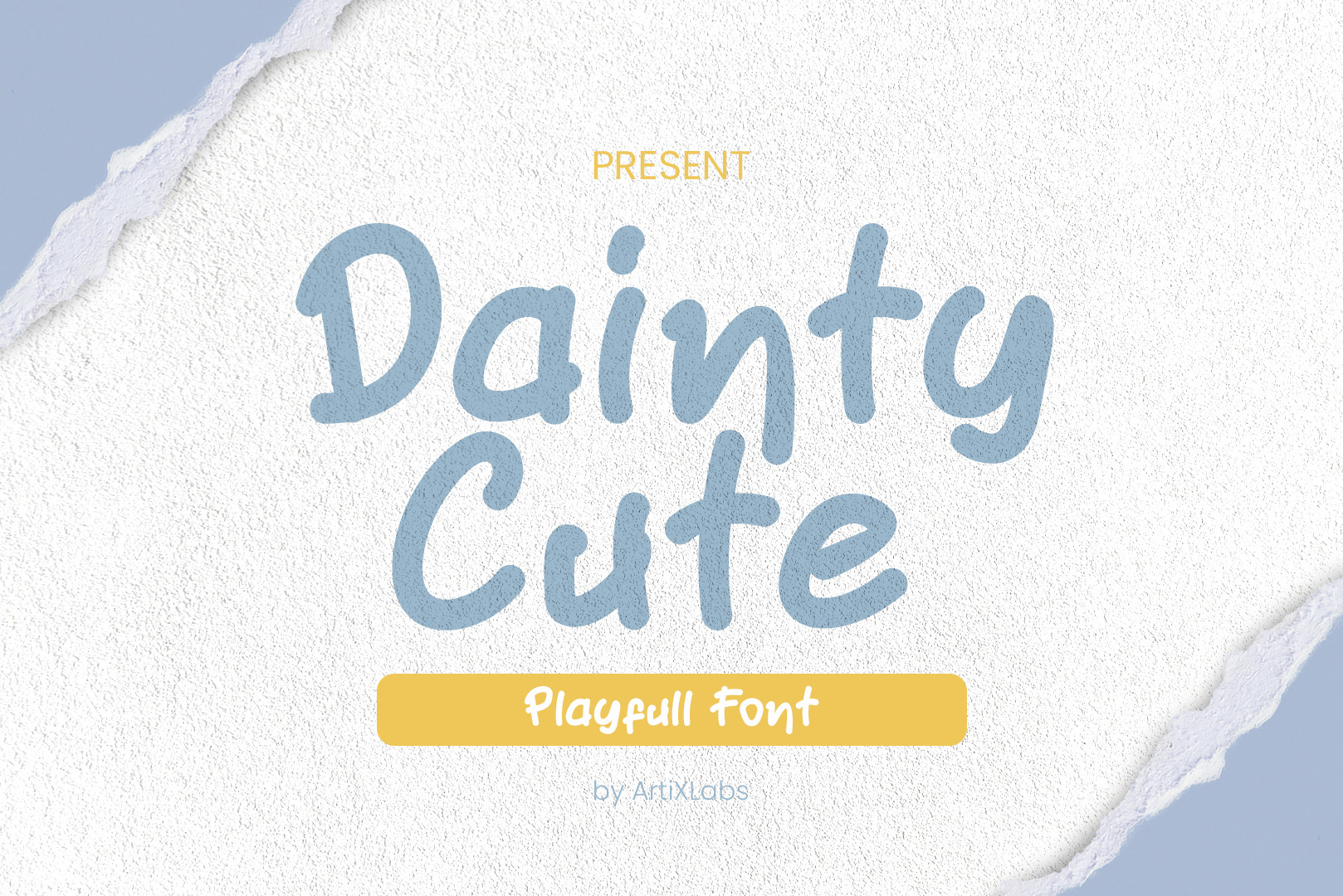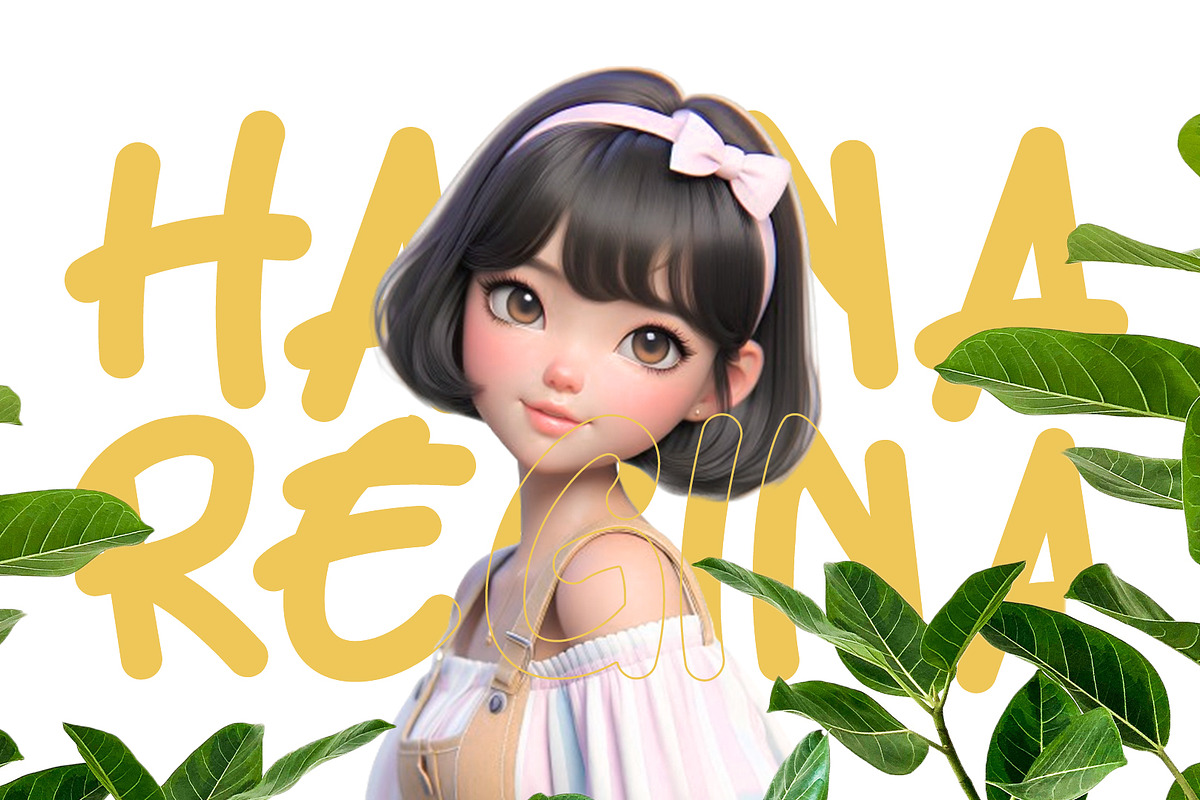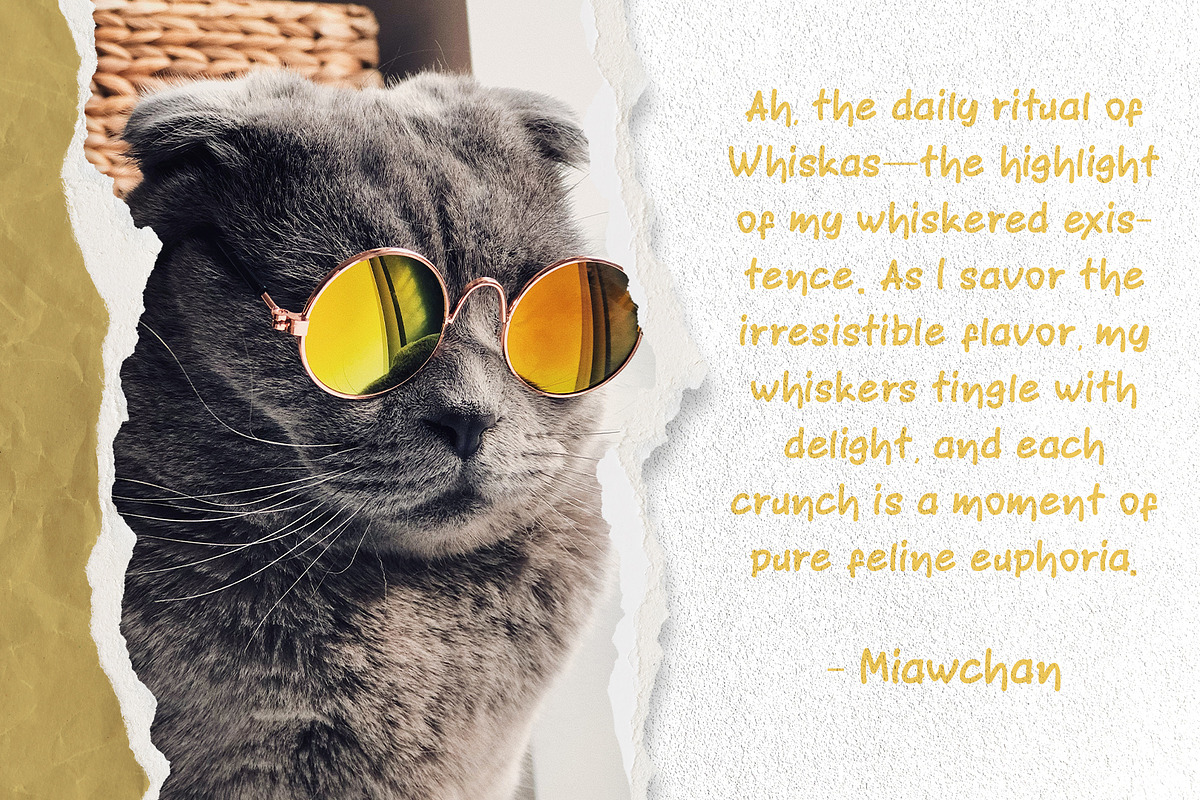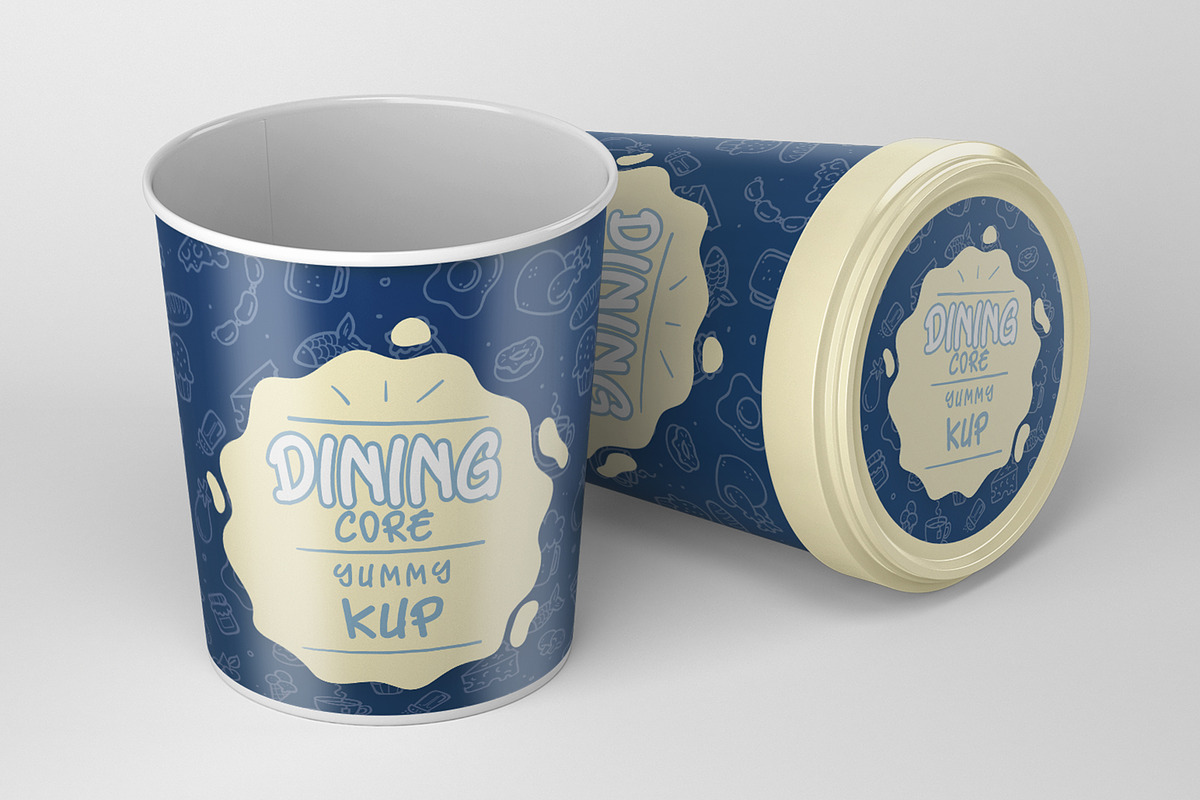
Dainty Cute - Playfull Font
Introducing DaintyCute - Playfull Font
This Font can be used for any variety of purposes, such as: Event, Birthday, Ceremony, Packaging Products, Logo Type, Branding, T-Shirt Design, Website/Blog, Headline Magazine, Brochures and also can be used for other purpose.
This Font Template contains Playfull, Cheersfull, Creative, Professional and Unique Concept.